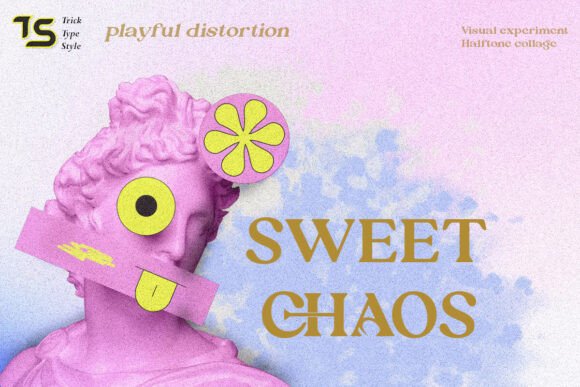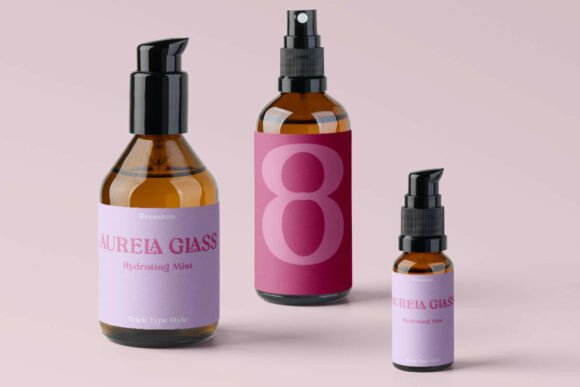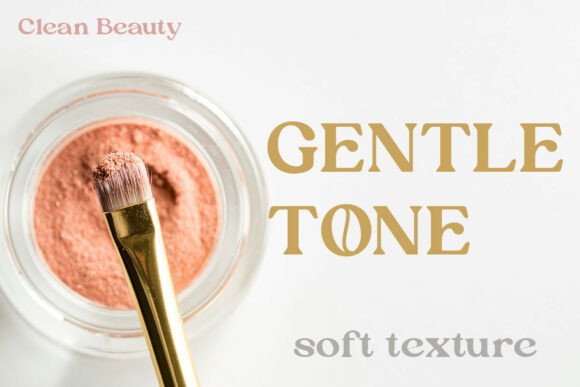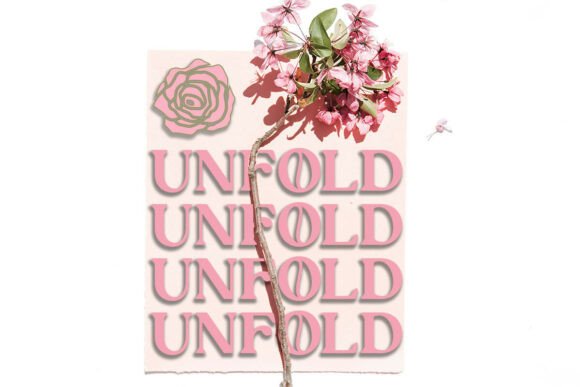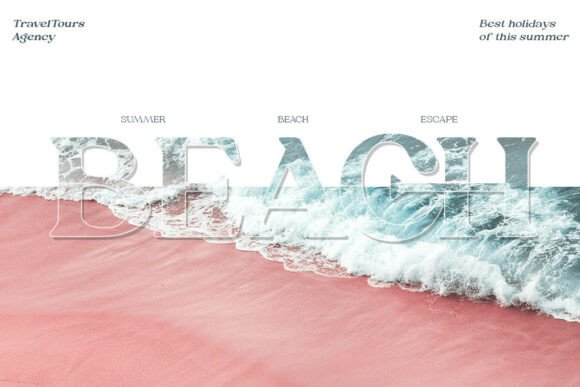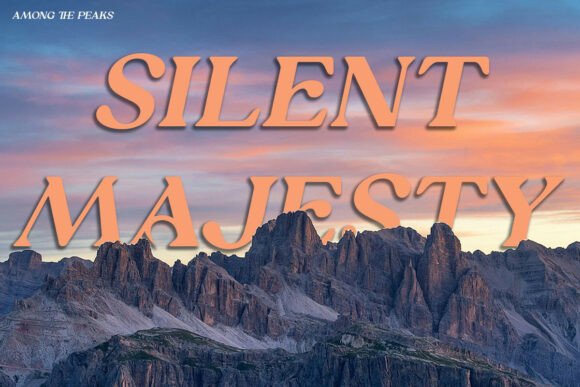
Introducing Ex Vaganza Font: Elevate Your Designs with Versatility and Elegance
In the realm of typography, finding the perfect font that combines versatility, elegance, and expressiveness can be a daunting task. However, for designers and crafters on the lookout for a typeface that can seamlessly transition from refined and delicate to bold and expressive, Ex Vaganza Font is here to revolutionize your creative projects. This comprehensive display serif font is meticulously designed to offer a wide and complete weight spectrum, making it an indispensable asset for any design endeavor.
The Essence of Ex Vaganza Font
Ex Vaganza Font stands out with its balanced proportions and elegant serif details, which are meticulously maintained across every style and weight. This ensures that whether you’re aiming for a subtle, sophisticated look or a bold, attention-grabbing statement, your typography remains consistent and visually appealing. The font’s versatility is its hallmark, making it suitable for a myriad of applications, from headlines and editorial layouts to branding, posters, and modern visual identities.
Key Features of Ex Vaganza Font
- Complete Weight Spectrum: Ex Vaganza Font offers an extensive range of weights, allowing designers to explore a vast spectrum of typographic expressions. This comprehensive weight range ensures that your creative vision is never limited by the font’s capabilities.
- Balanced Proportions: The font is crafted with balanced proportions, ensuring that each letterform complements the others to create harmonious and readable text.
- Elegant Serif Details: The elegant serif details add a touch of sophistication and refinement to the font, making it perfect for projects that demand a high level of typographic elegance.
- Versatility: Ex Vaganza Font’s adaptability makes it an excellent choice for various design projects, including but not limited to headlines, editorial layouts, branding, posters, and modern visual identities.
Applications of Ex Vaganza Font
The applications of Ex Vaganza Font are vast and varied, catering to the needs of designers across different creative fields. Here are some of the key areas where this font excels:
- Headlines and Titles: The font’s range of weights makes it ideal for creating headlines and titles that require a significant impact, from subtle and elegant to bold and expressive.
- Editorial Layouts: For magazines, newspapers, and digital publications, Ex Vaganza Font offers the perfect blend of readability and style, enhancing the overall reading experience.
- Branding and Logotypes: The font’s elegant and versatile nature makes it suitable for branding projects, helping to create a strong and memorable visual identity.
- Posters and Advertising: Whether you’re designing a poster or an ad, Ex Vaganza Font can help you create visually striking and effective typography that captures attention.
- Digital and Print Media: Its adaptability to different mediums makes it a go-to font for designers working on projects that will be published in both digital and print formats.
Why Choose Ex Vaganza Font?
In a world where typography plays a crucial role in the success of a design project, Ex Vaganza Font emerges as a powerful tool for designers and crafters. Its unique combination of versatility, elegance, and expressiveness, along with a comprehensive weight spectrum, makes it an invaluable resource. By choosing Ex Vaganza Font, you’re not just selecting a typeface; you’re investing in a typographic solution that can elevate your designs, enhance readability, and leave a lasting impression on your audience.
| Author | Trick Type Style |
Ex Vaganza Font is more than just a display serif font; it’s a gateway to limitless creative possibilities. With its elegant serif details, balanced proportions, and extensive weight range, it offers designers the flexibility and expressiveness needed to bring their visions to life. Whether you’re working on a branding project, editorial layout, or a poster, Ex Vaganza Font is poised to become your go-to typeface for creating stunning, impactful designs. Embrace the versatility and elegance of Ex Vaganza Font, and discover a new dimension of typographic excellence.